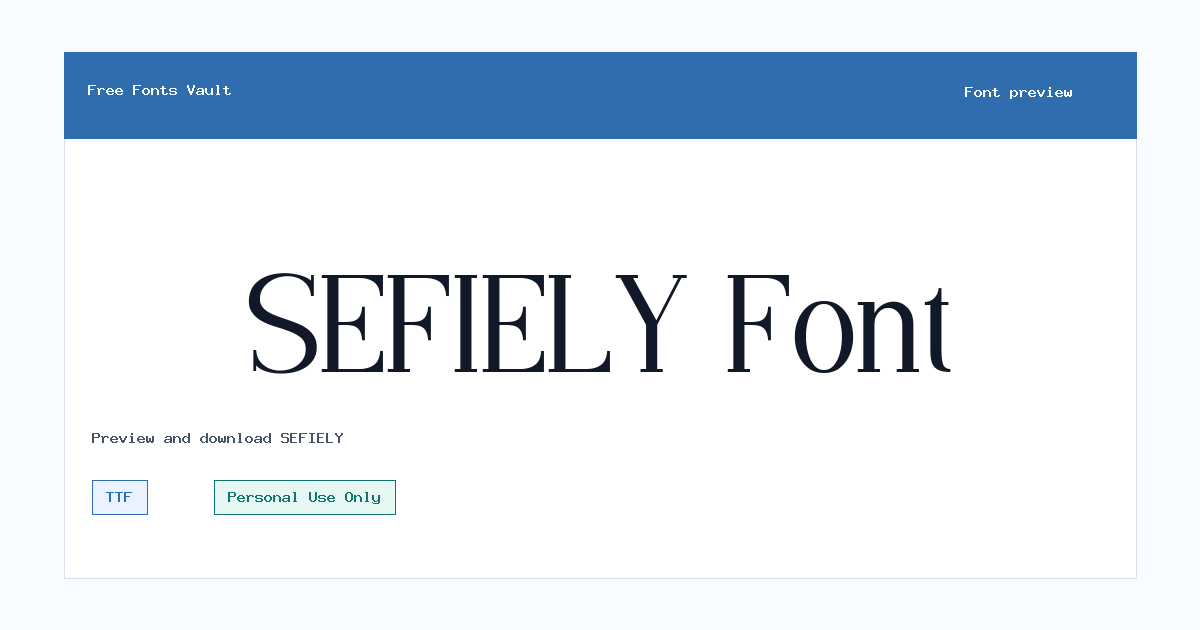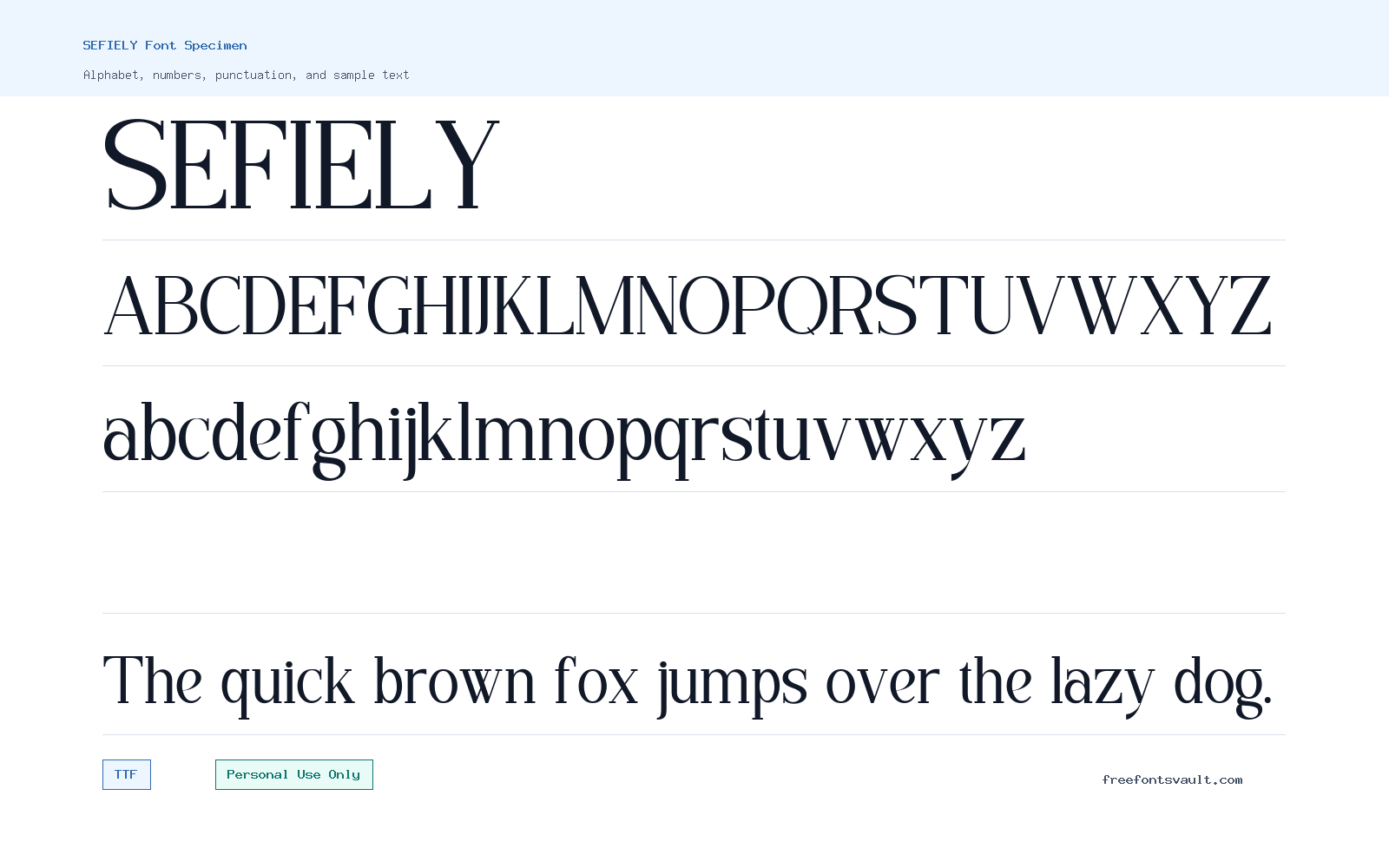
SEFIELY
SEFIELY Font
SEFIELY is a serif font from FLAWLESSANDCO with a regular TTF style for personal design projects, previews, and mockups.
About SEFIELY Font
SEFIELY is best approached as a serif typeface for visitors who want a simple way to test headline text, brand-name ideas, poster titles, invitations, and other short pieces of display copy. The available style is a regular weight, so the font is most useful when you want to judge the core letter shapes without switching between multiple weights. Use the preview box to type your own words, not just sample text. A font can feel very different when tested with a real name, a short slogan, or a phrase that includes repeated letters, numbers, and punctuation.
For logo concepts, try SEFIELY in very short wording first: a name, initials, or a two-word lockup. Serif fonts can bring a more editorial or refined feel, but the final result depends on the exact letters in your text. Check how the capital letters sit beside lowercase letters, whether spacing feels even, and whether any letter pairs need manual adjustment. If you are preparing a real logo for a brand, treat the preview as an early design test and confirm licensing before using it in public or paid work.
For posters and web mockups, give SEFIELY enough space. Start with titles, section headers, hero text, quote graphics, or small editorial accents rather than long paragraphs. A single regular style can work well for clean mockups, but it may not give enough hierarchy by itself. Pair it with a quiet sans serif for body copy, navigation, captions, or supporting details. This keeps the serif face visible where it has impact while keeping longer reading areas comfortable.
When pairing SEFIELY, avoid using another decorative or highly detailed font right next to it. A neutral sans serif, a restrained grotesk, or a plain humanist sans can help the serif title stand out. If you want a more classic layout, try SEFIELY for the main heading and use a simple serif or sans serif with strong readability for body text. Keep line spacing generous in mockups, and test the font at both large and small sizes before deciding where it belongs.
• Useful for testing short display text, names, titles, and non-commercial mockups
• Single normal style keeps previewing simple and focused
• Suitable for exploring logo directions before choosing a commercially cleared font
• Works best when paired with a readable, restrained text font
• Personal logo drafts and name studies
• Poster titles and quote graphics
• Editorial-style headings in mockups
• Invitation or stationery experiments
• Mood boards and non-commercial brand concepts
• Web hero text previews and layout tests
The designer is listed as FLAWLESSANDCO. No foundry name or official designer link is available in the font listing.
What kind of font is SEFIELY?
SEFIELY is identified as a serif font. It is a good candidate to preview for short titles, names, logo drafts, posters, and editorial-style mockups.
Who designed SEFIELY?
The designer is listed as FLAWLESSANDCO.
What should I pair with SEFIELY?
Try pairing it with a simple sans serif for body text, captions, navigation, or supporting copy. This helps the serif lettering stand out without making the layout feel crowded.
Is SEFIELY good for long paragraphs?
Use the preview to judge readability first. With only a regular style available, it is safer to start with headings, short phrases, and display text rather than long body copy.